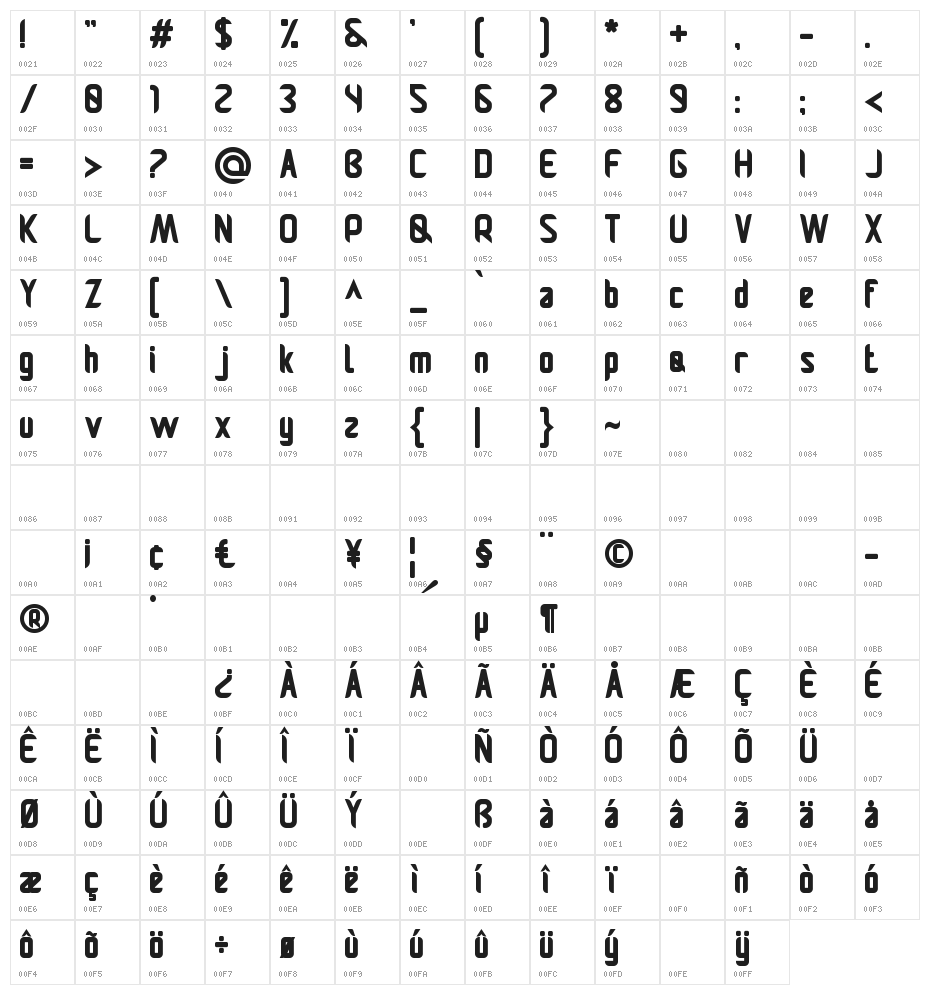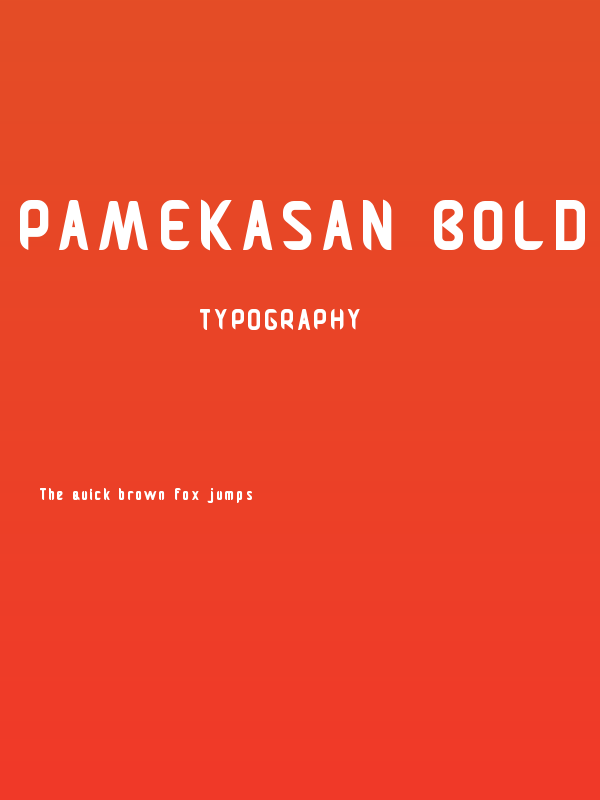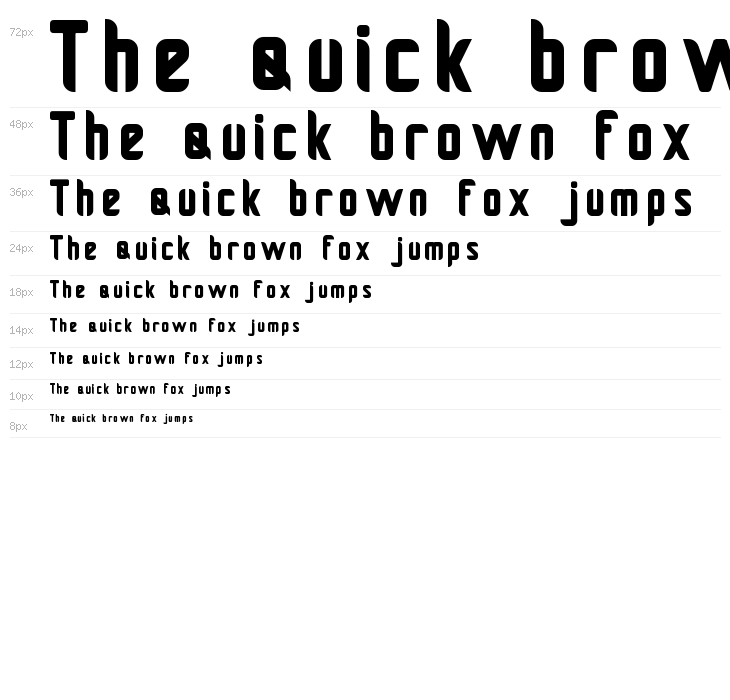
Pamekasan Bold Font
Pamekasan Bold Description
This font features a bold and modern design with a geometric structure. The characters have a uniform stroke width, giving it a clean and consistent appearance. The uppercase letters are slightly condensed, while the lowercase letters maintain a similar width, creating a harmonious balance. The numerals are distinct and easy to read, making them suitable for various applications. Special characters are well-defined, adding versatility to the font. The overall style is contemporary, with a touch of minimalism that makes it suitable for both digital and print media.